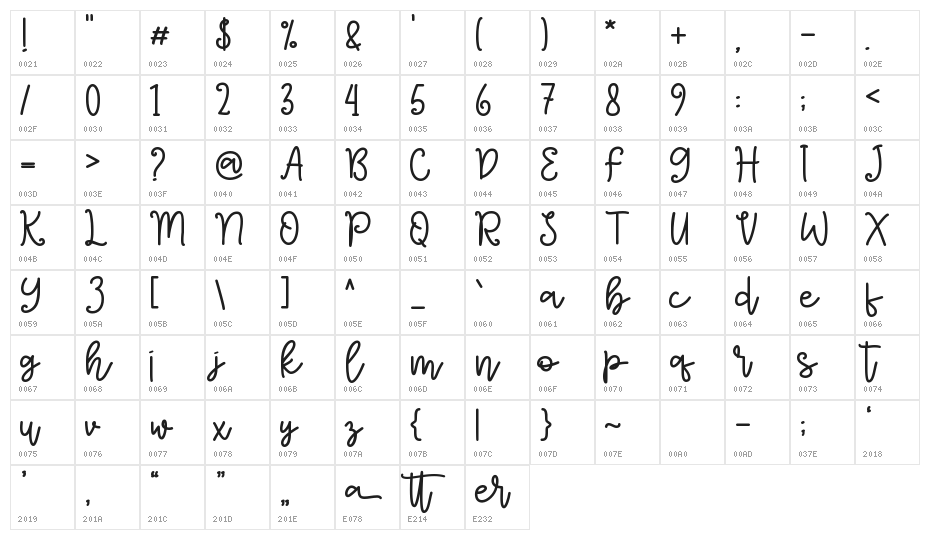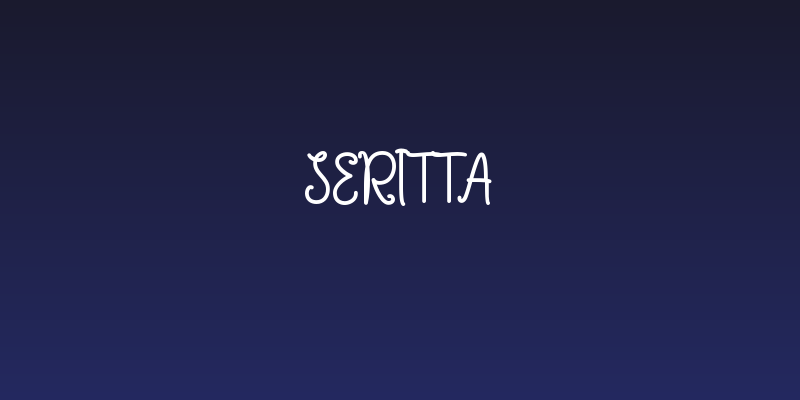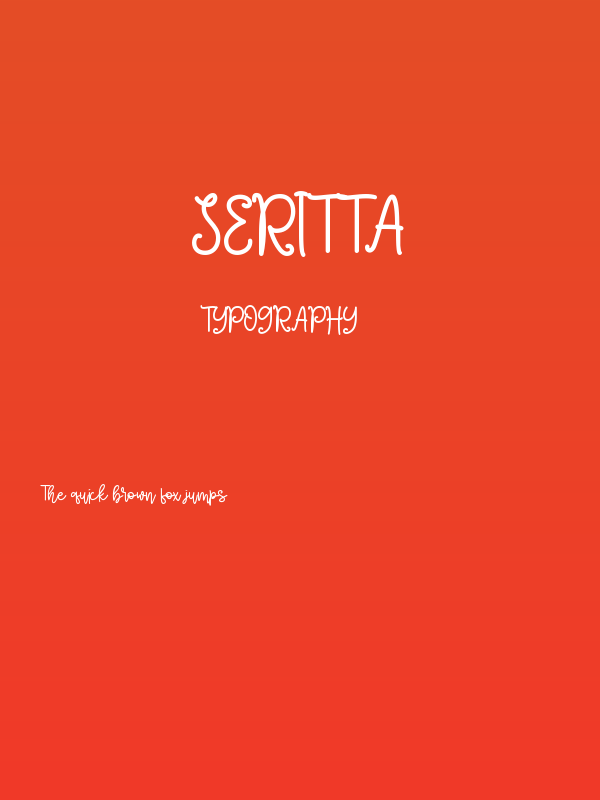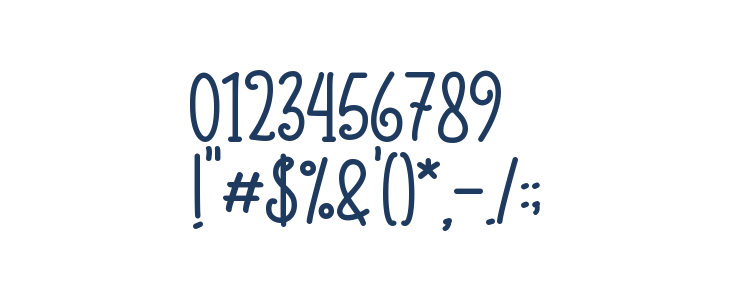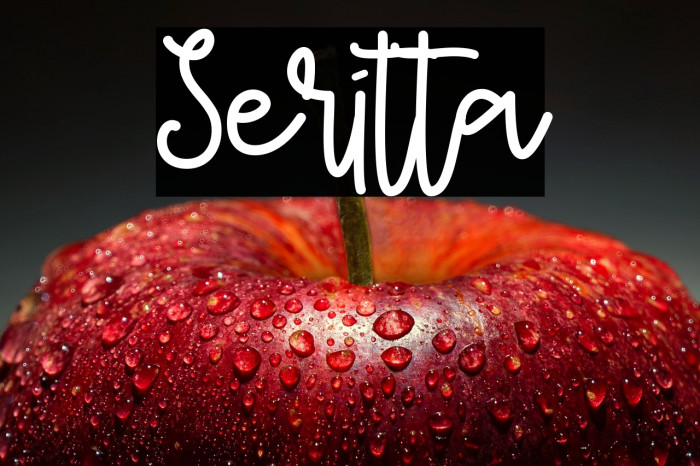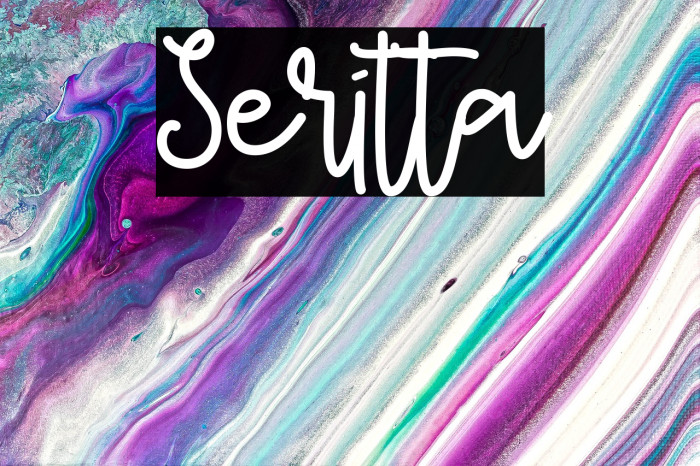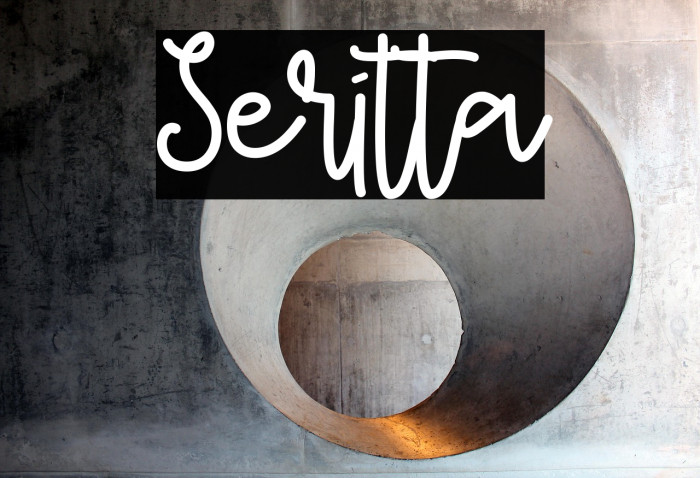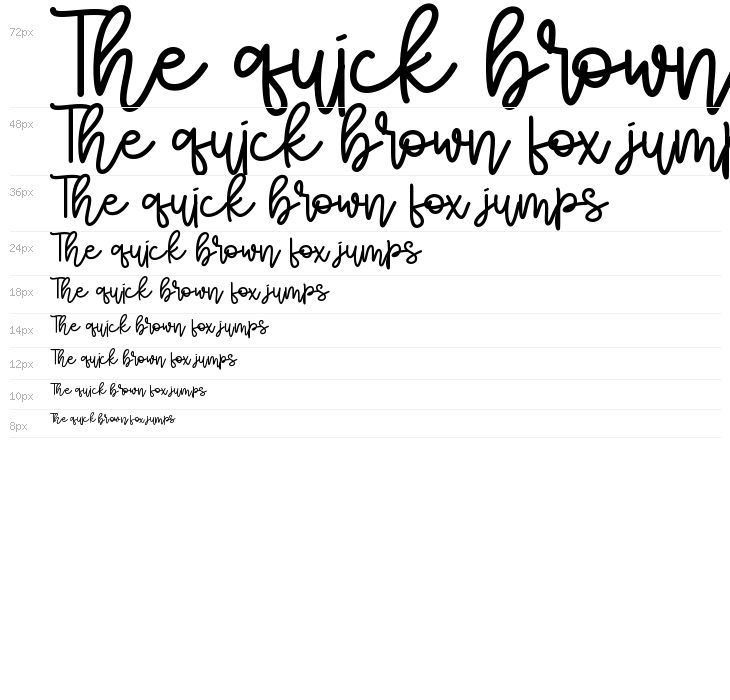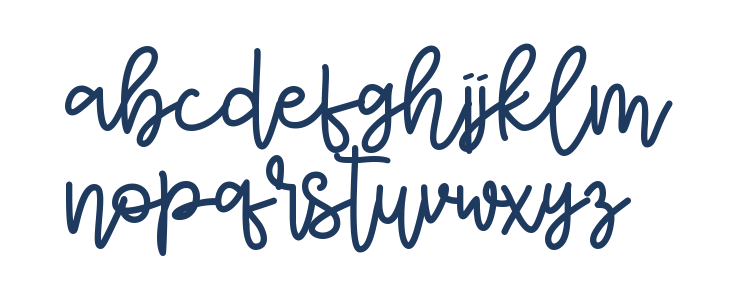
Seritta Font
Seritta Description
This font features a playful and whimsical handwritten style, characterized by its smooth, flowing curves and rounded edges. The uppercase letters are tall and slightly narrow, while the lowercase letters maintain a consistent height, creating a harmonious balance. The numerals are clear and legible, matching the overall playful aesthetic. Special characters are creatively integrated, maintaining the font's cohesive look. This font exudes a friendly and approachable vibe, making it suitable for a variety of creative projects.